9 Best Romantic Fonts for Your Gorgeous Design
Romantic Fonts
A good design is a layout that has harmony. It is consistent in determining the theme, and color palette, and also choosing romantic fonts. Thus, it may seem complementary, but it can have a big influence on the overall look of the template. Are you in need of fonts for greeting card designs on Valentine’s day? Here comes the answer!
The right fonts can make the first image on a design look stronger. For example, you want to create a design theme that is full of romance, a style that is casual but also captivating. It makes each implied message even more meaningful.
Fancy and Stylish Fonts Make Design Look Unique
These romantic fonts have prominent characteristics, if you usually find romantic templates that have delicate fonts, then not with these fonts. Some of the following examples of fonts look very unique, and stylish at the same time.
1. Broadway
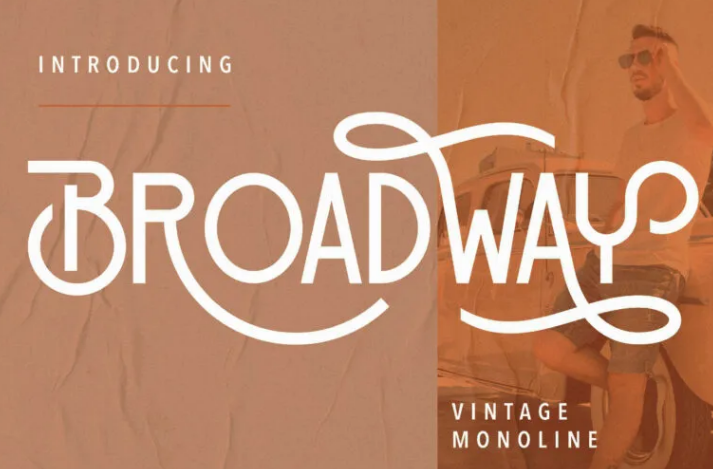
The beautiful curvature of this Broadway font makes it look outstanding against its minimalistic design and subdued color palette. The collection of letters from this font is enough to steal the stage. So if you are comfortable with a minimalist design, then a font like Broadway can make the template livelier and still artistic.
2. Vallery Qylmor
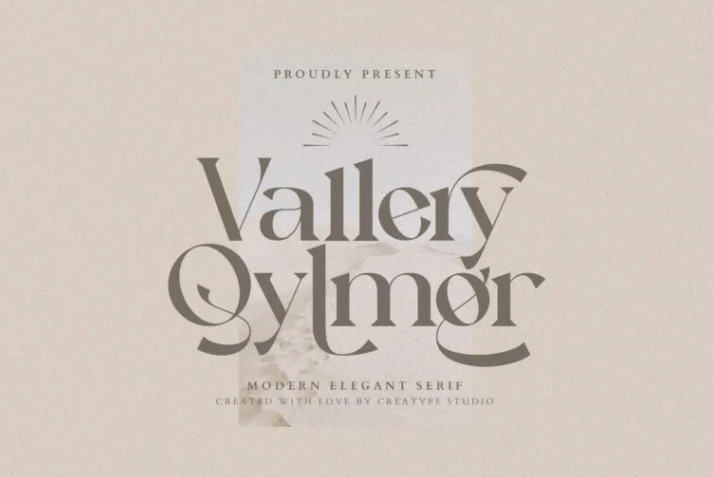
Similar to Broadway, this font from Vallery Qylmor is best paired with a minimalist design. Its use can be as a display which is the main point of the design, or also for subtitles. Apart from that, this letter from Vallery Qylmor seems to have an elegant side that is also very romantic.
3. Calinastya
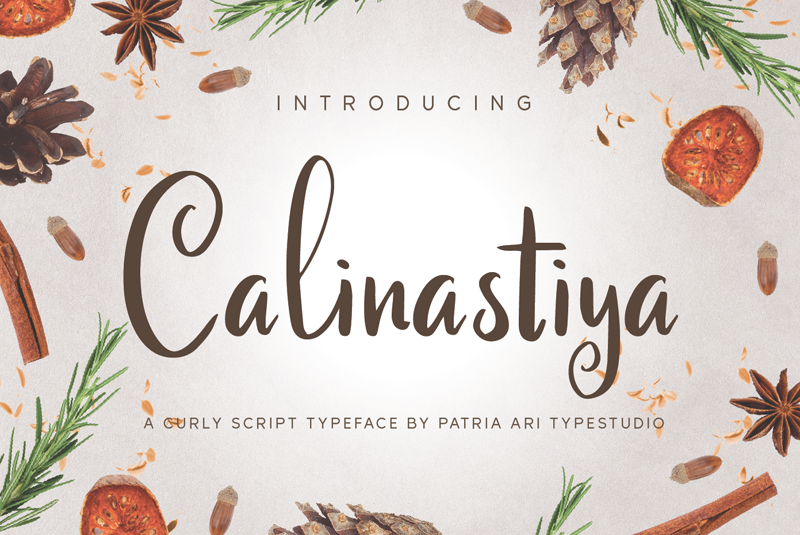
One of the romantic fonts, like Calinastya has a lot in common with calligraphy fonts. But Calinastya has a typical alphabet that tends to be simpler and has smaller fonts. So that this font is also suitable for subtitles, or descriptions on a template.
Calligraphy Romantic Fonts for Elegant Look
You may often find these calligraphy fonts on several wedding invitations or other designs that are often used for romantic things. Calligraphy fonts do have a characteristic style that is like being handwritten, as well as the curvature, which is the artistic side.
1. Wyattruly Luxury Script
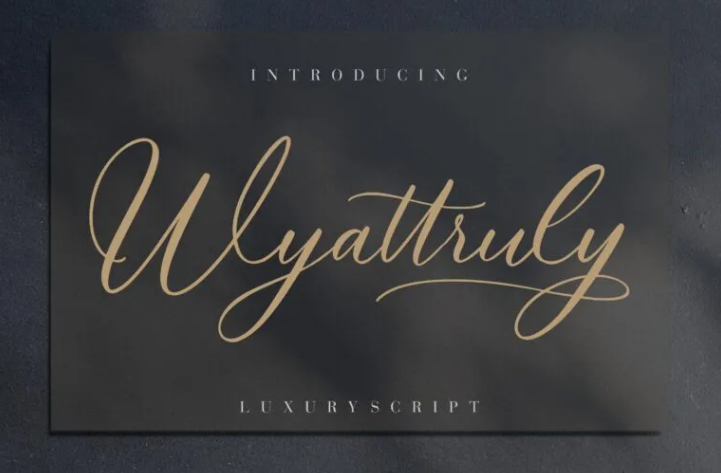
Some people tend to like calligraphy fonts like Wyattruly Luxury Scripts. At first glance, this font looks more abstract compared to other calligraphy fonts. However, it is precisely this artistic side that makes this font look elegant and stunning.
2. Attena
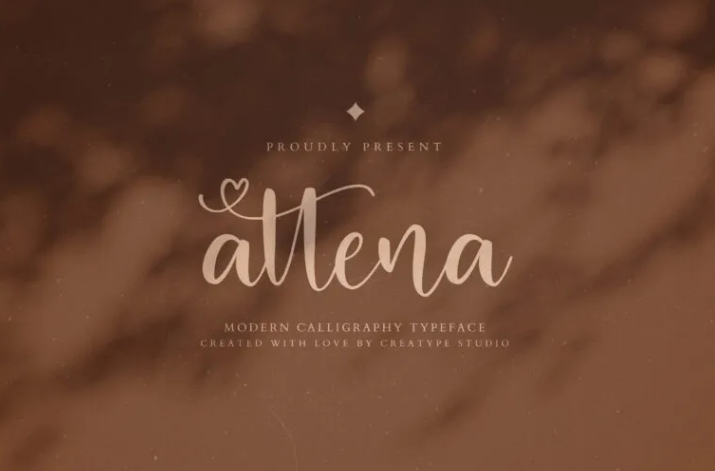
One of the most popular romantic fonts is this font from Attena. the size tends to be smaller, with beautiful short curves, giving the impression of a more girly and romantic. So fonts like this are the most suitable for greeting cards on your Valentine’s Day.
3. Mackyloo
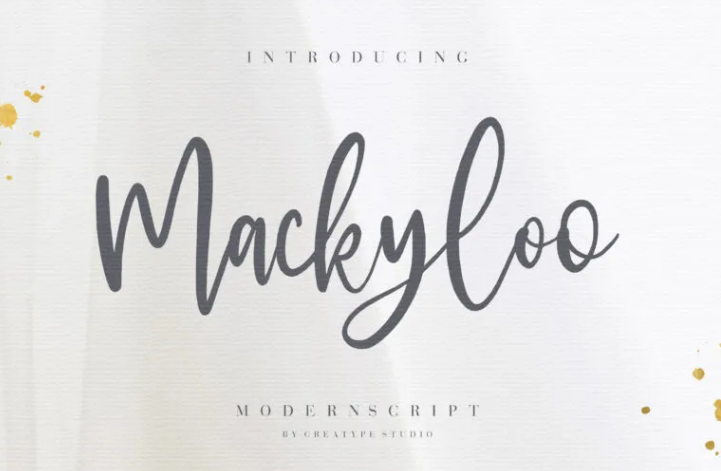
Unlike calligraphy fonts in general, which still appear neat and orderly, this font from Mackyloo tends to have unequal and neat sides. So when using this font there is an abstract impression that is still beautiful, and friendly to read. You can also get this font at Creattypestudio.com.
Even Brush Fonts Make it more Romantic
Would you like a slightly different font style? Maybe the letters with this brush font style can refresh the look of your design. The appearance of a semi-formal brush font makes every template with this font seem more relaxed and beautiful.
1. Brand Quest
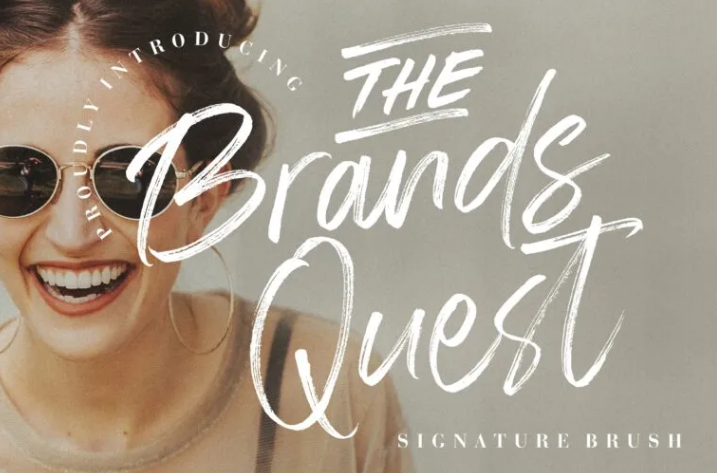
Romantic fonts with light brush strokes make this font from The Brand Quest look full of art. On the other hand, the collection of letters from The Brand Quest is also quite large and beautiful, making it suitable to complement romantic displays.
2. Hey August
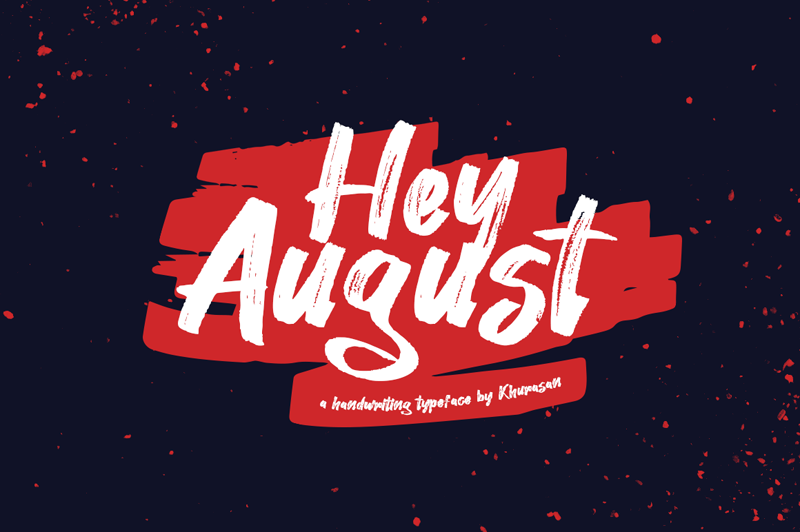
Almost the same as before, but this time Hey August offers a heavier collection of brush strokes. The high density of the brush makes this font much more assertive, but it also has a beautiful and elegant side. You can download these fonts at Dafont.com, it’s free!
3. Diana Handlettering
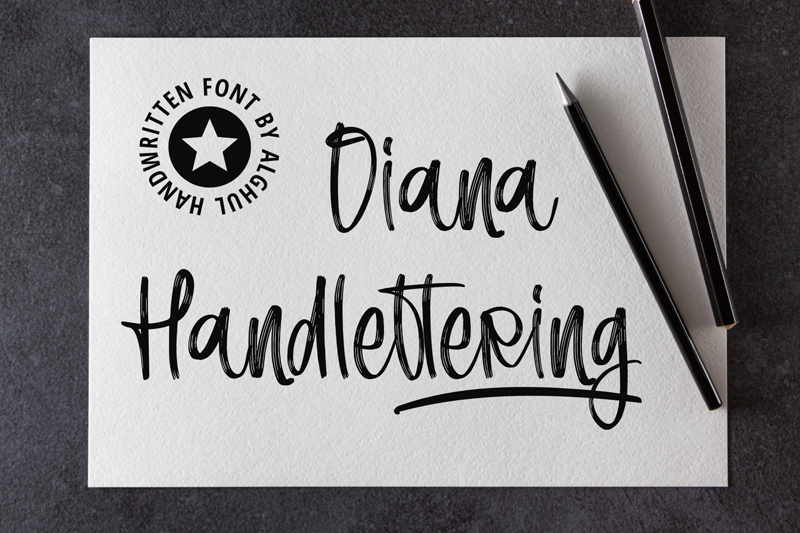
Many designers deliberately use font types such as handwriting to write greeting cards or fill out romantic designs. Especially if you are going to make a more realistic Valentine’s greeting card, then this Diana Handlettering can be the best reference for you.
Which One is Your Favorite Romantic Font?
There are many ways to express love for someone special, one of which is by selecting detailed romantic font designs. This makes each template display more beautiful, gorgeous, artistic,c and romantic. All of this balance can create an unbelievably stunning template design!